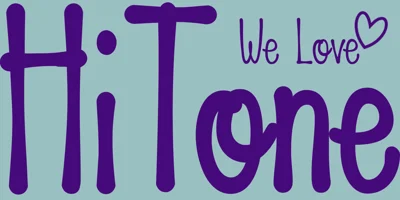
HiTone Font
The HiTone Font is ideal for audio equipment branding, music production studios, high-fidelity speaker companies, professional recording labels, sound engineering firms, premium headphone manufacturers, concert venue signage, and audiophile lifestyle brands. This dynamic typeface excels in applications where sound quality and audio excellence need to be emphasized, making it perfect for music technology companies that want to communicate superior audio performance and professional sound expertise through resonant, acoustically-inspired typography.
What makes HiTone Font exciting is its acoustic precision and sound wave energy that captures the essence of high-fidelity audio and professional music production. The font's dynamic letterforms and frequency-inspired character design create an atmosphere of sonic excellence and audio sophistication, making it ideal for brands that want to convey the clarity of premium sound and the expertise of professional audio engineering. Its resonant presence ensures that every application sounds crisp with genuine audio authenticity and professional credibility.
The HiTone Font family typically includes regular, bold, and heavy weights, often featuring sound wave elements, frequency indicators, and audio symbols that enhance its musical appeal. Many versions include equalizer graphics, waveform patterns, and specialized characters that provide designers with comprehensive tools for creating authentic audio-focused design projects with genuine sound engineering sophistication and musical excellence.
For designers working on projects that require audio authenticity and sound engineering credibility, HiTone Font delivers exceptional acoustic appeal. Its ability to instantly communicate sound quality and professional audio expertise makes it an invaluable choice for music technology brands, recording studios, and any project requiring typography that embodies the precision of high-fidelity audio, the excellence of professional sound production, and the sophisticated appeal of premium acoustic engineering and musical technology.